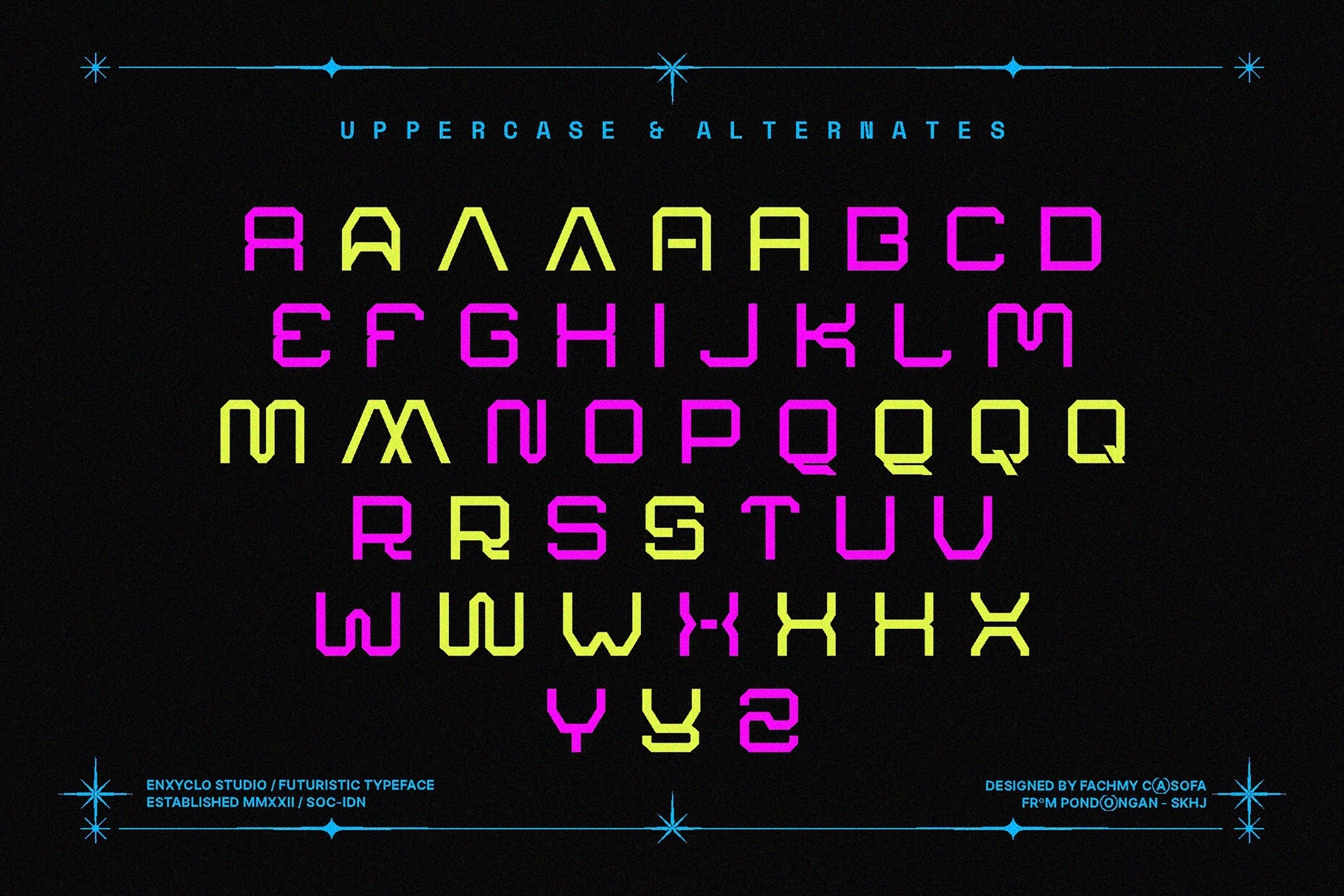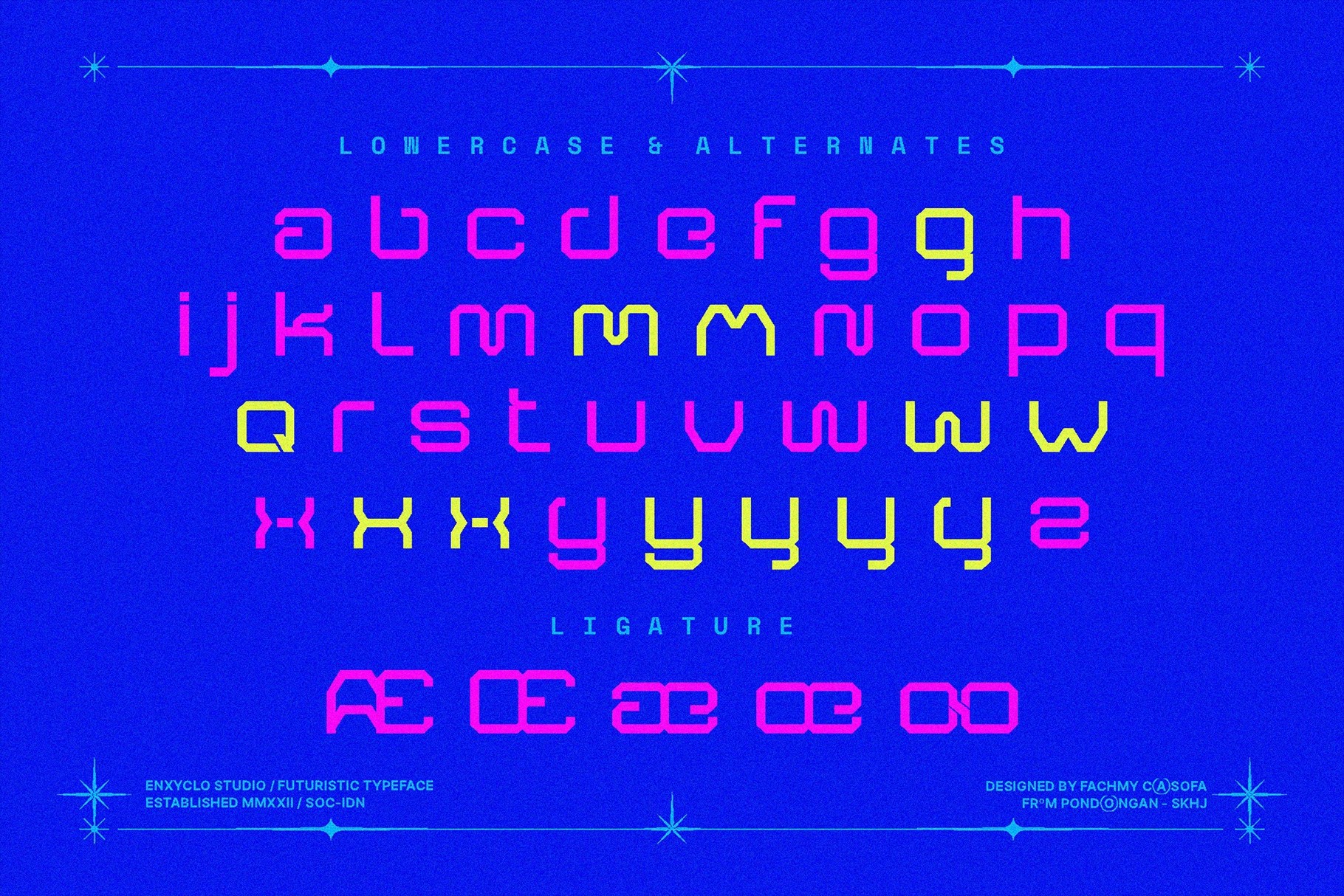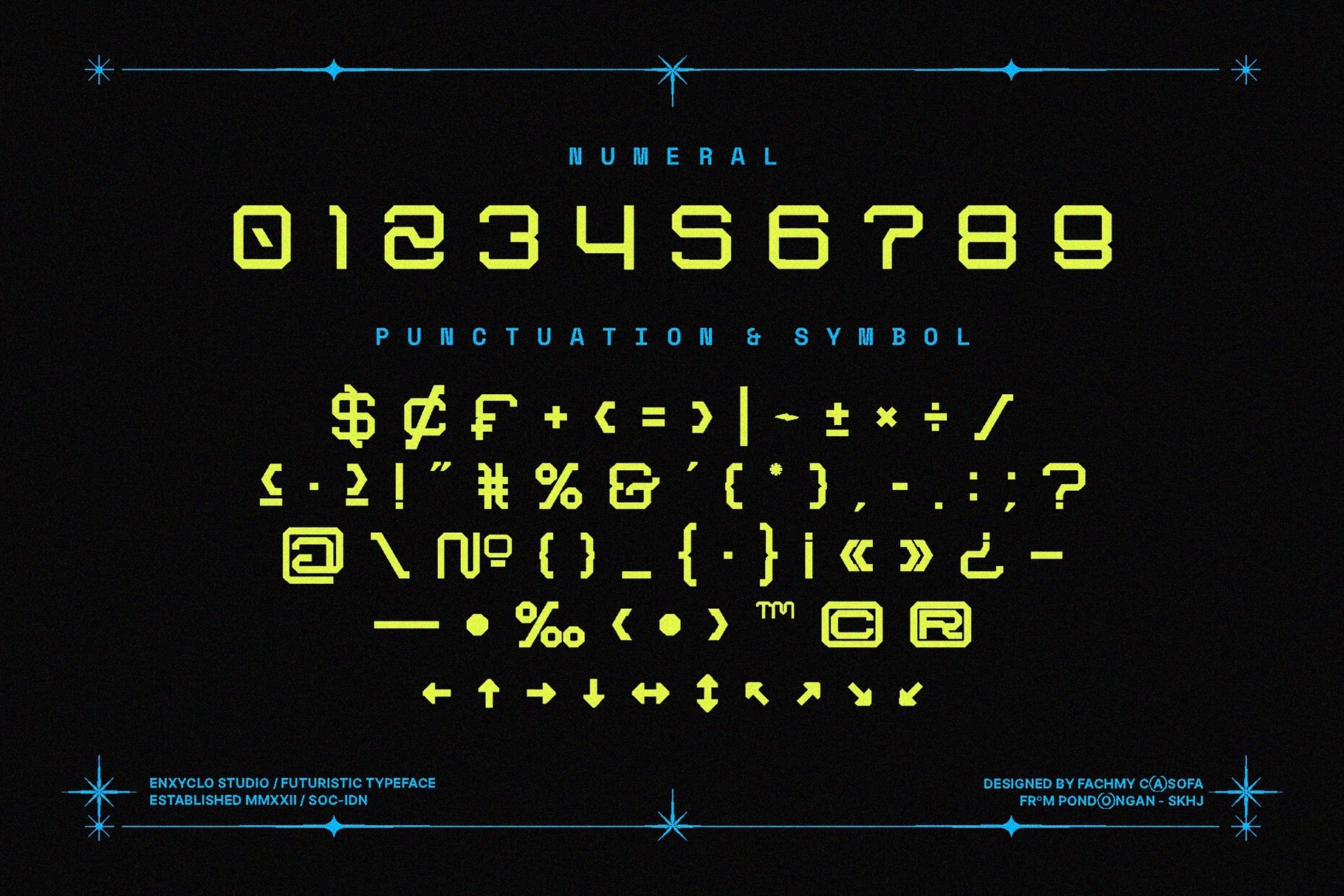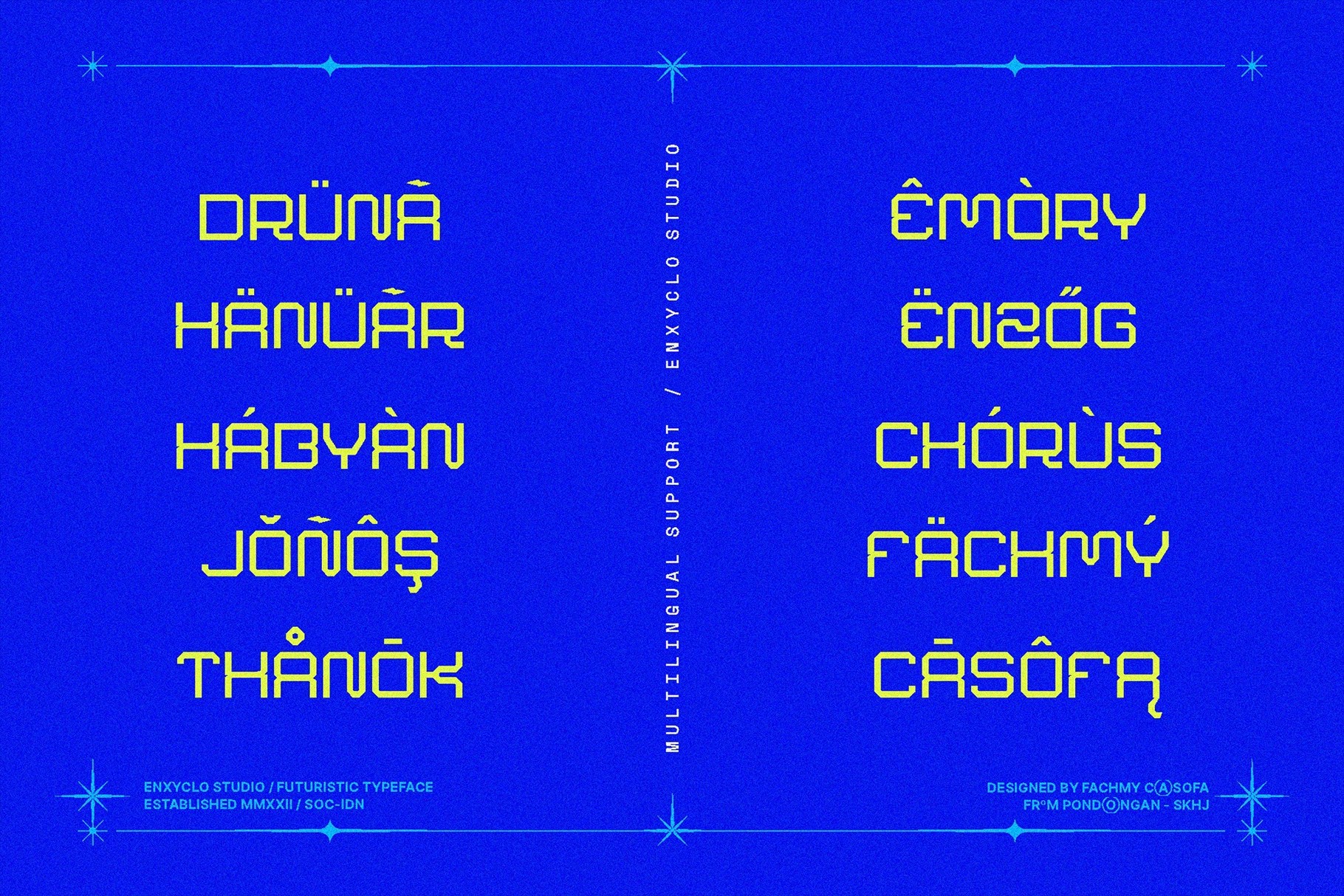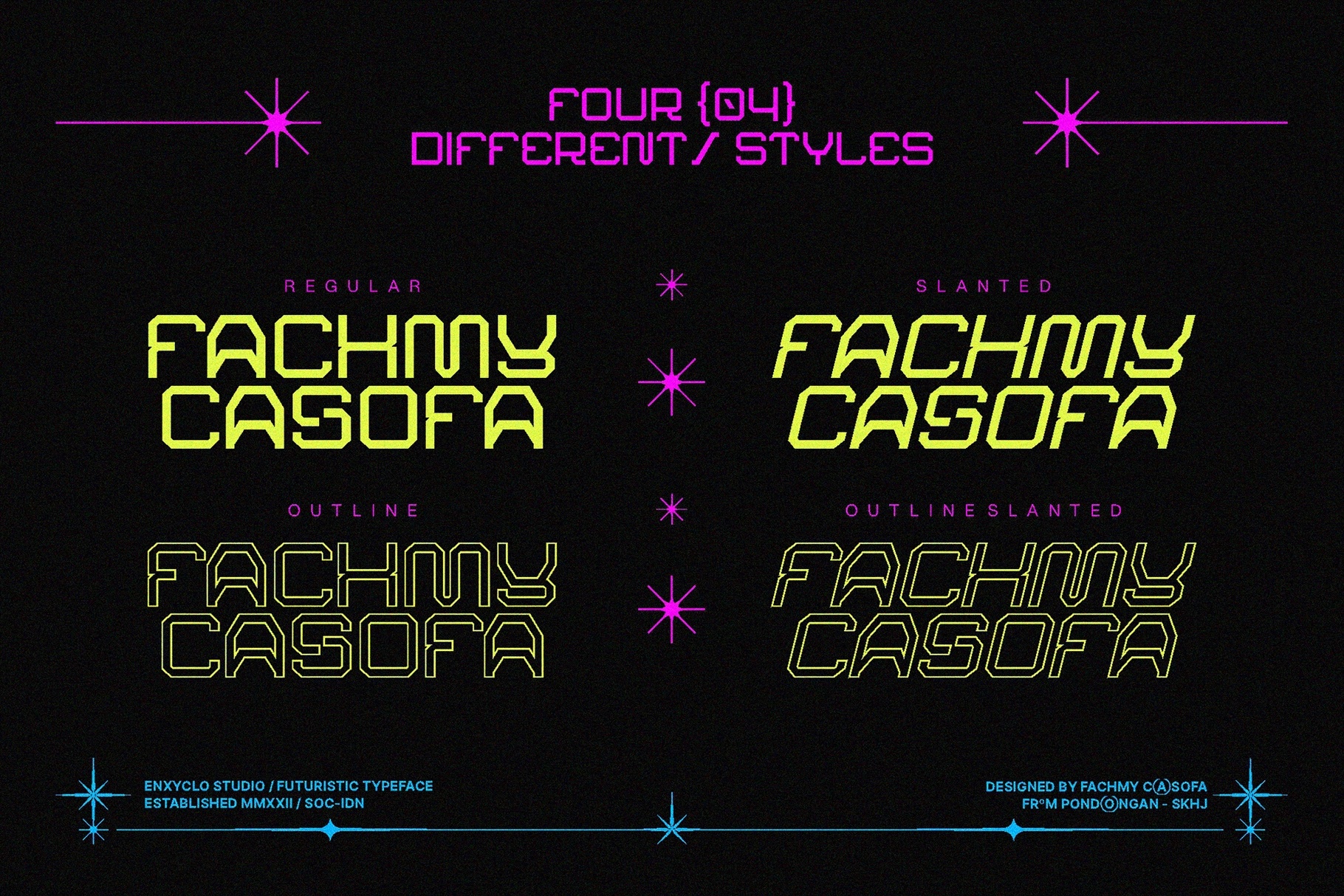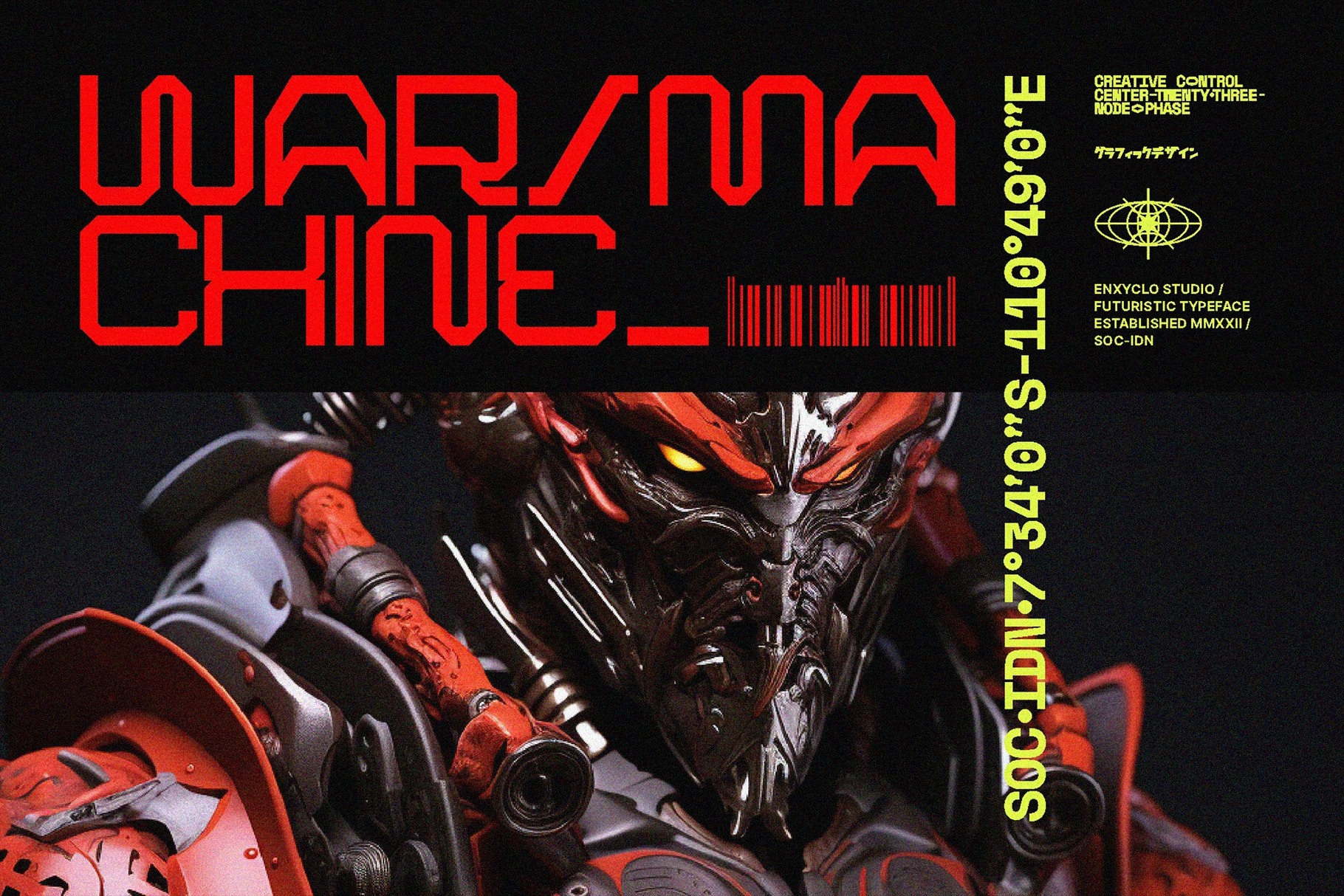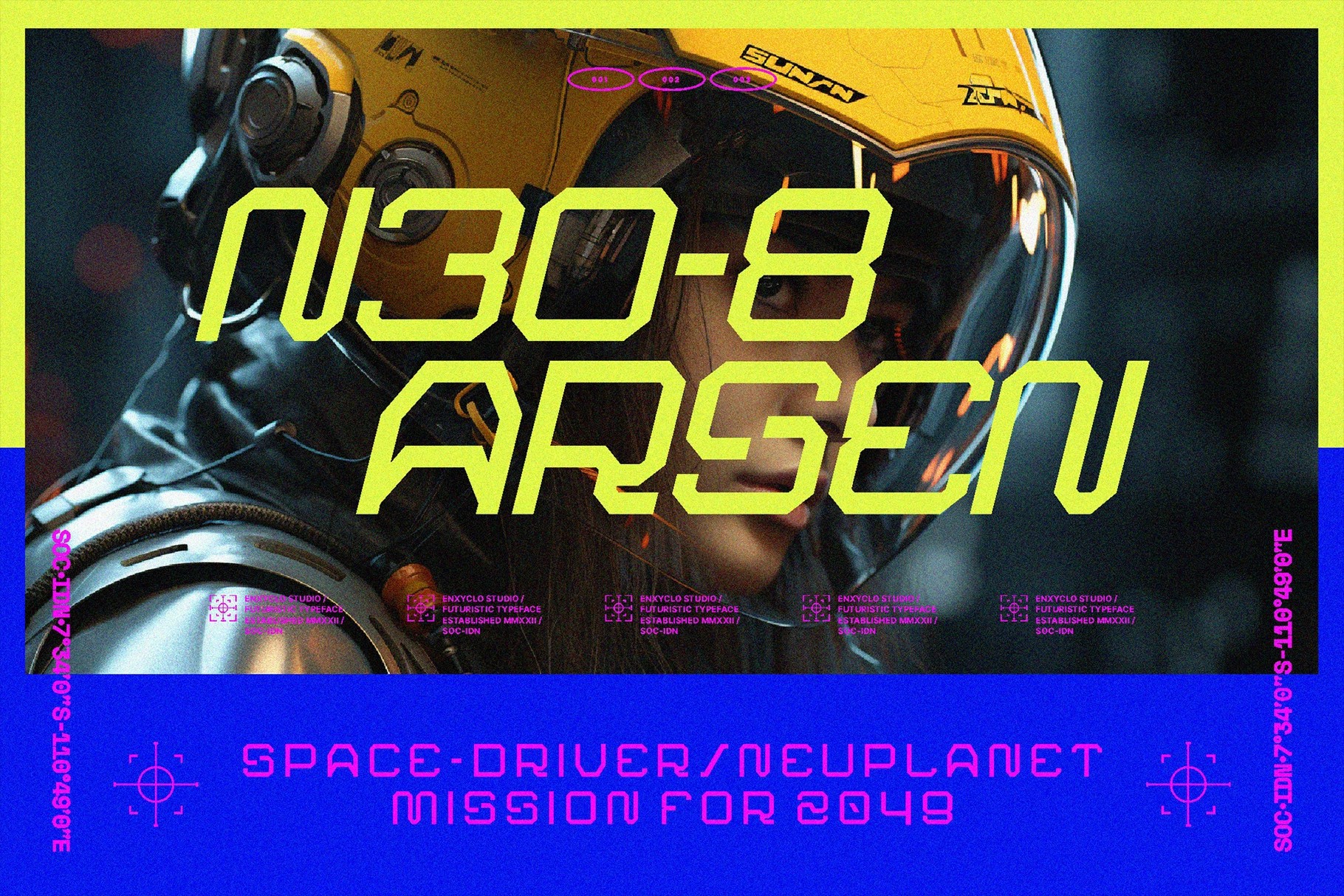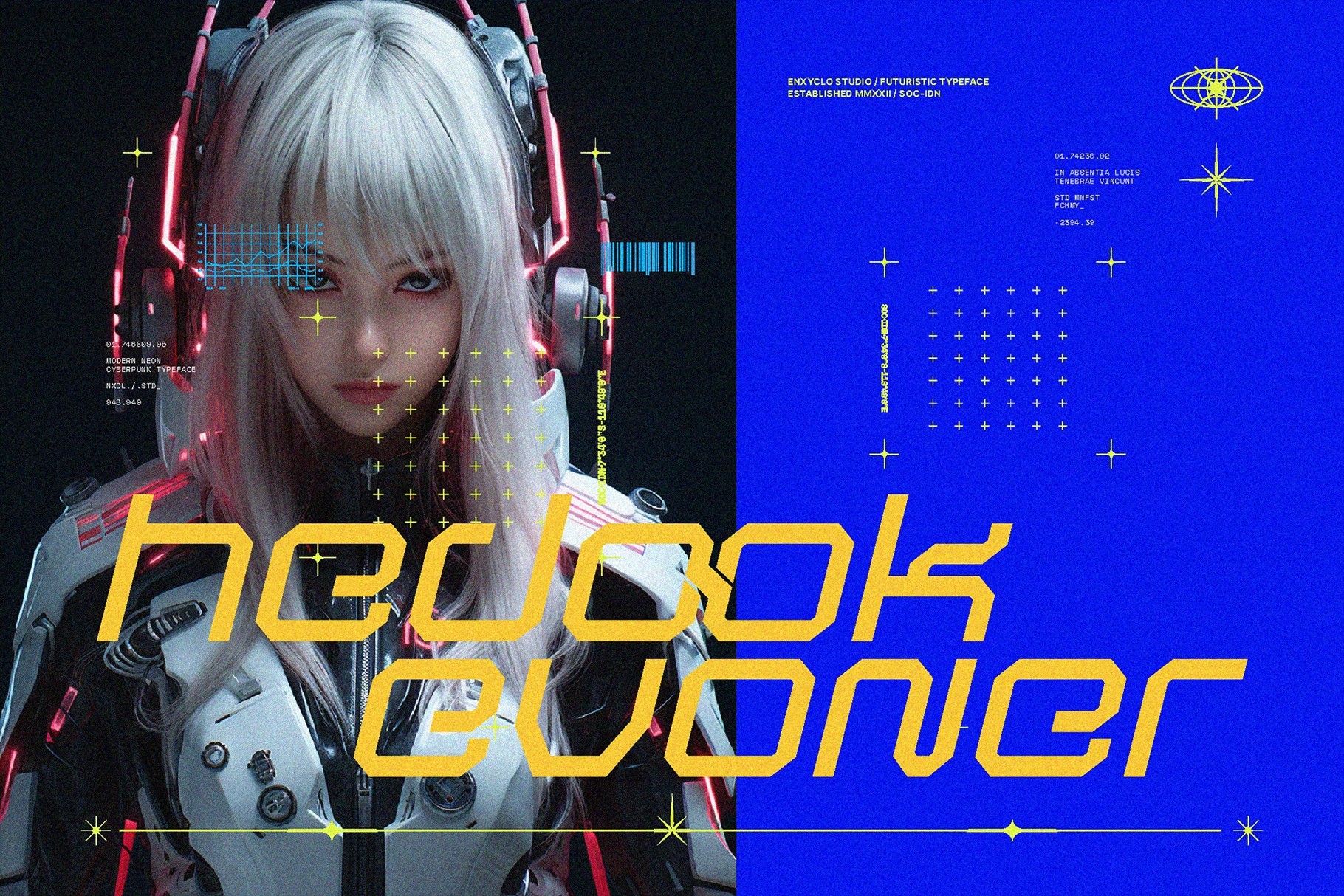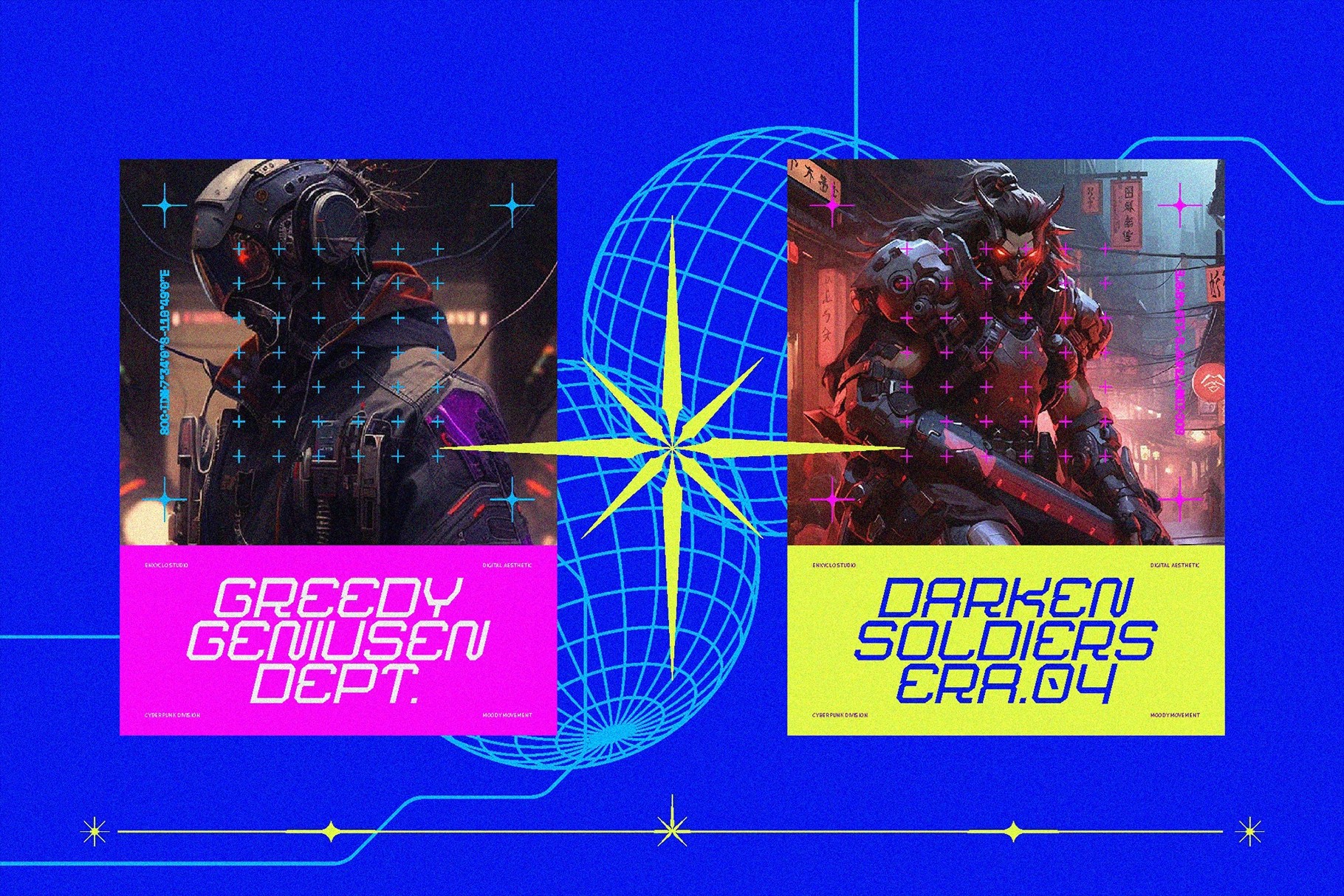
ARSEGZONE - Futuristic Sci-Fi Techno Font
ARSEGZONE Futuristic Sci-Fi Techno Font features angular letterforms with cut corners, geometric gaps, and a neon palette presentation that emphasizes its digital, high-contrast look. The previews show uppercase and lowercase sets, numerals, arrows, and dense symbol coverage, along with slanted and outline styles that expand its use across interface design, posters, and tech-driven branding.
- 4 styles: Regular, Slanted, Outline, Outline Slanted
- Arrows and special characters